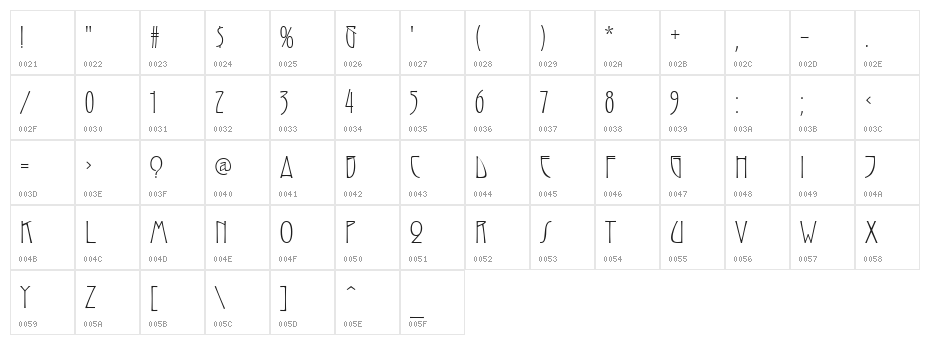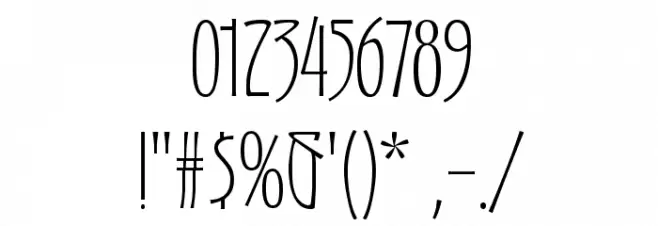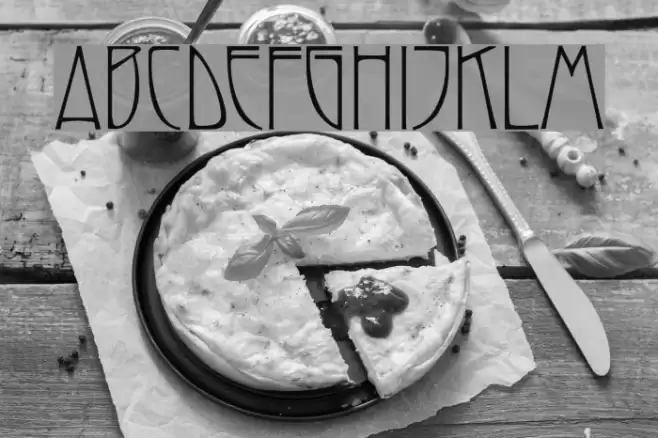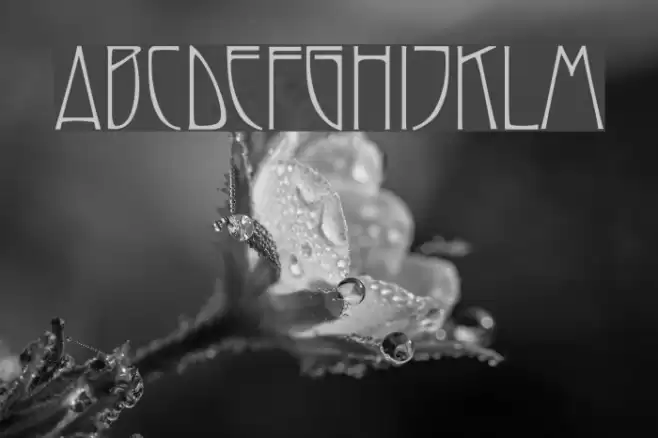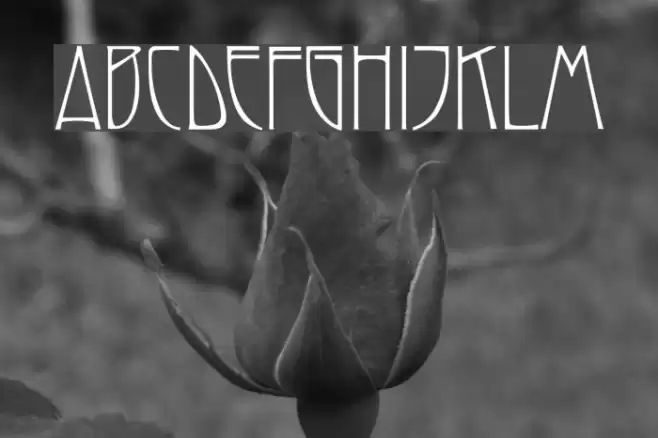
Gradl Font
Gradl Description
This font features a unique and artistic design with elongated and narrow letterforms. The uppercase letters exhibit a distinct geometric style with sharp angles and clean lines, giving it a modern and sophisticated appearance. The lowercase letters maintain a similar aesthetic, with a slightly more rounded and softer approach. The numerals are consistent with the overall design, offering a cohesive look. Special characters are creatively integrated, enhancing the font's versatility. This font is ideal for projects that require a contemporary and stylish touch, making it suitable for branding, advertising, and editorial design.
| Width | Condensed |
| Proposed Projects | Ideal for branding, advertising, editorial design, and modern art projects. |